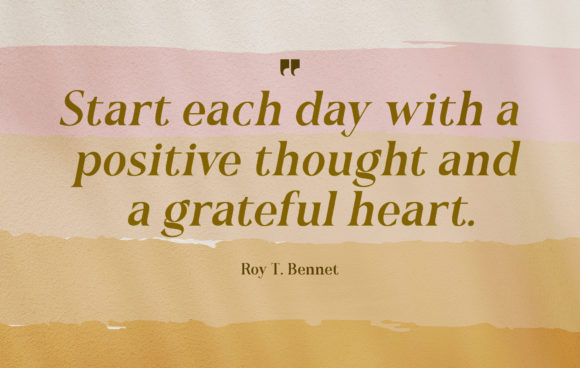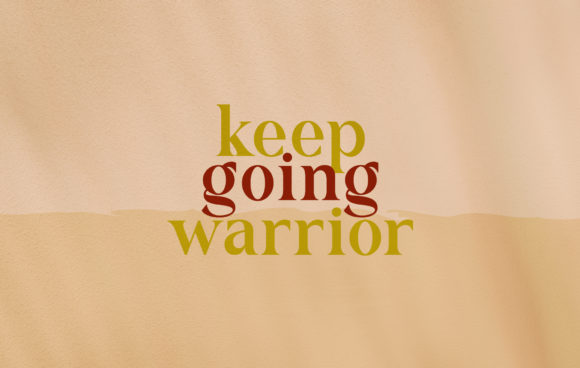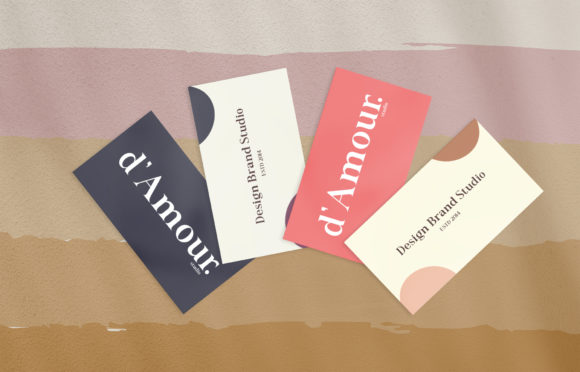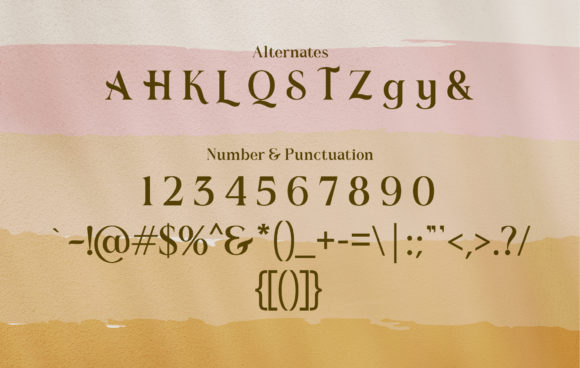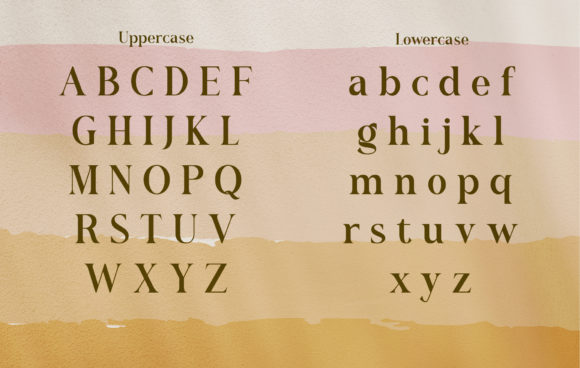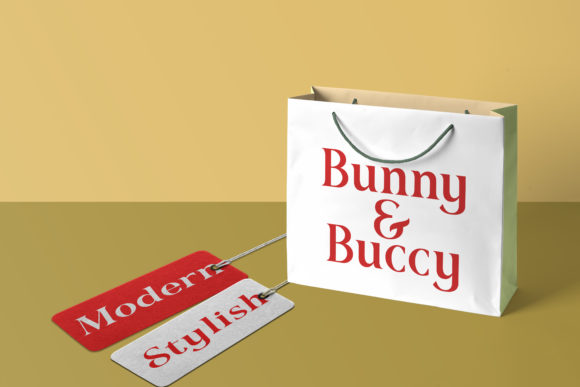
Introduction to Romerio Font
Romerio is a stunning single weight serif font with a classic feel.
It will add a charming feel to any design idea .
Key Features of Romerio Font
Why Choose Romerio Font?
Romerio Font offers exceptional quality and versatility, making it a valuable addition to your design toolkit. Whether you’re creating for personal projects or commercial use, Romerio Font delivers professional results.